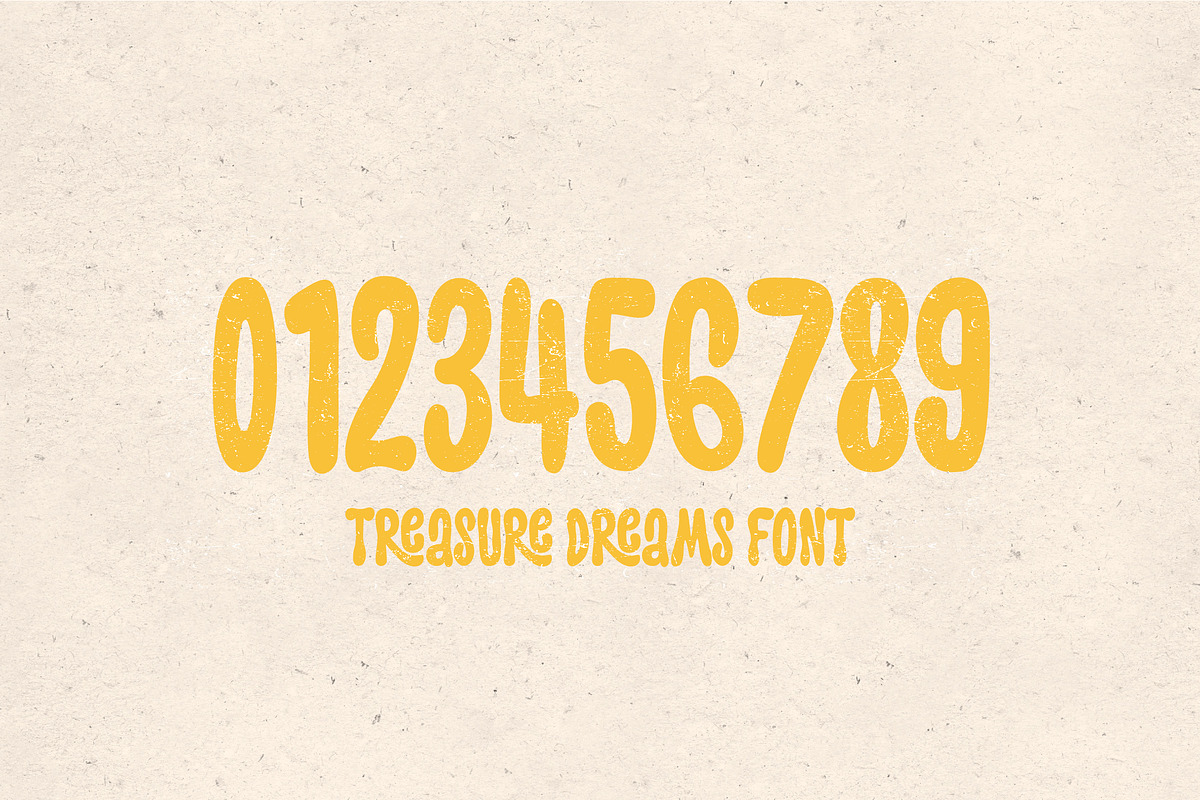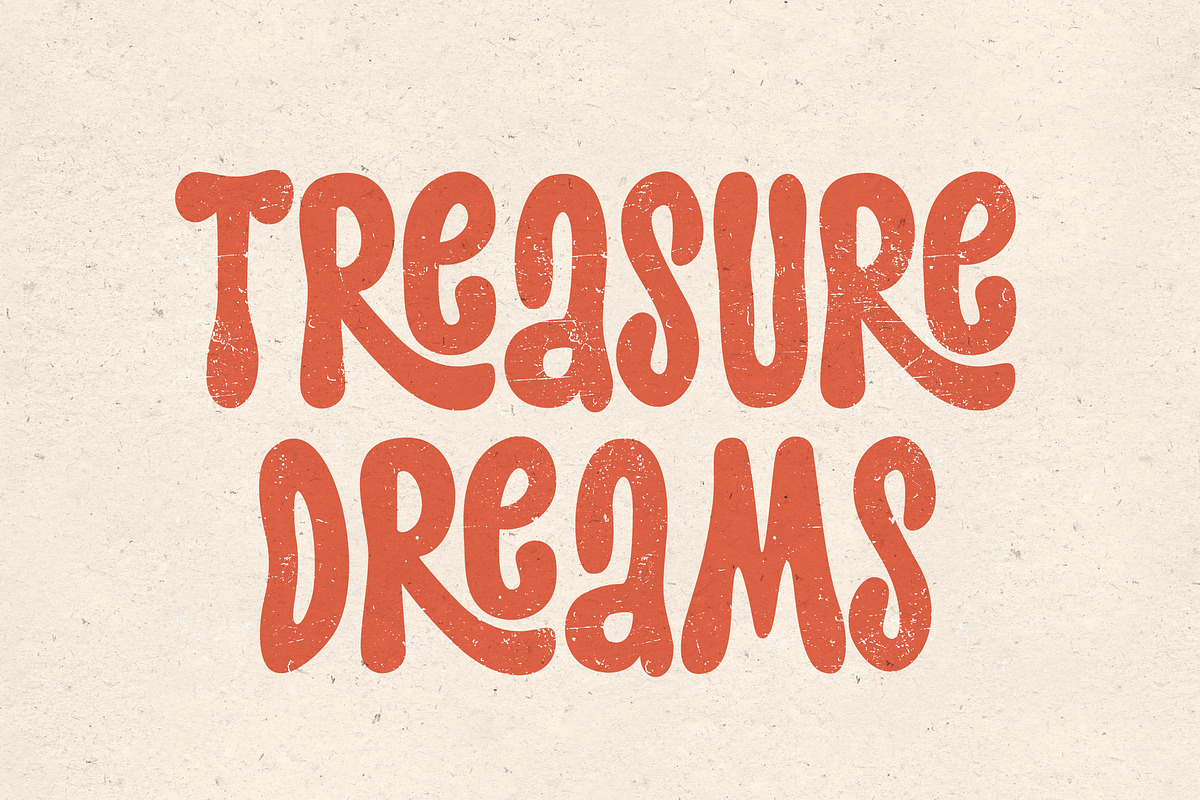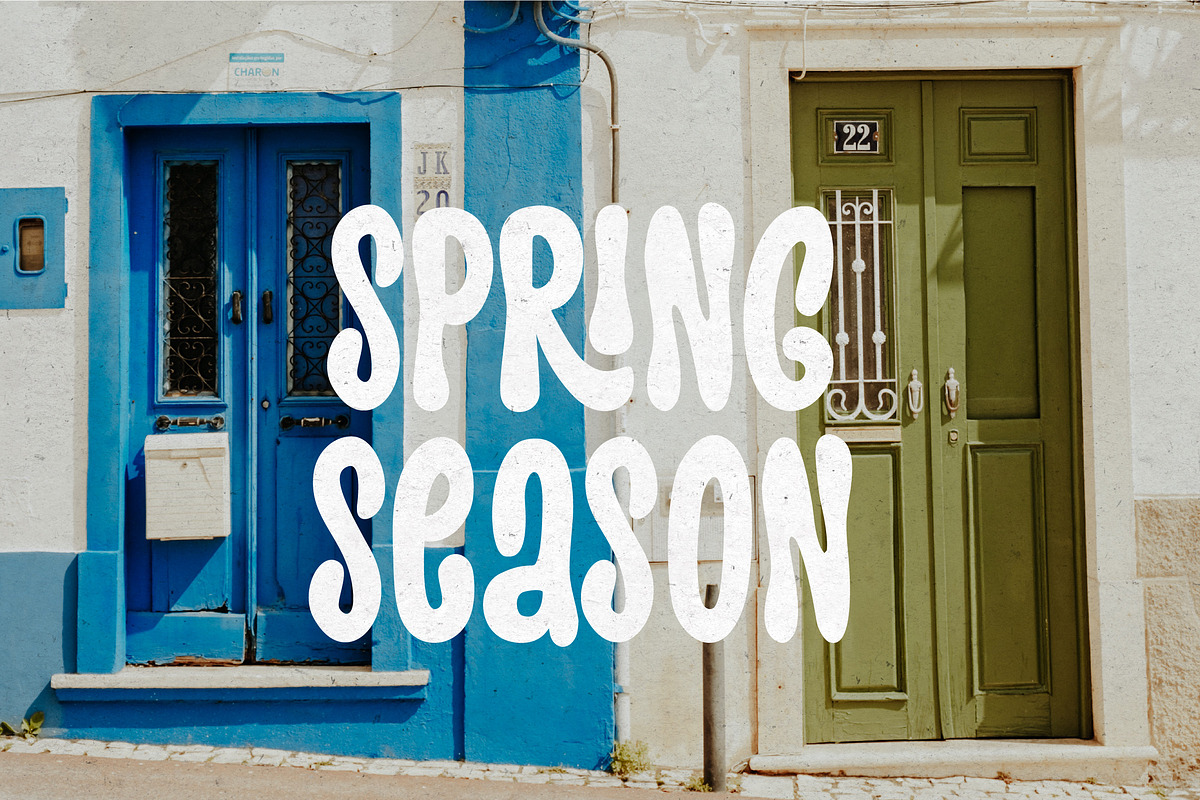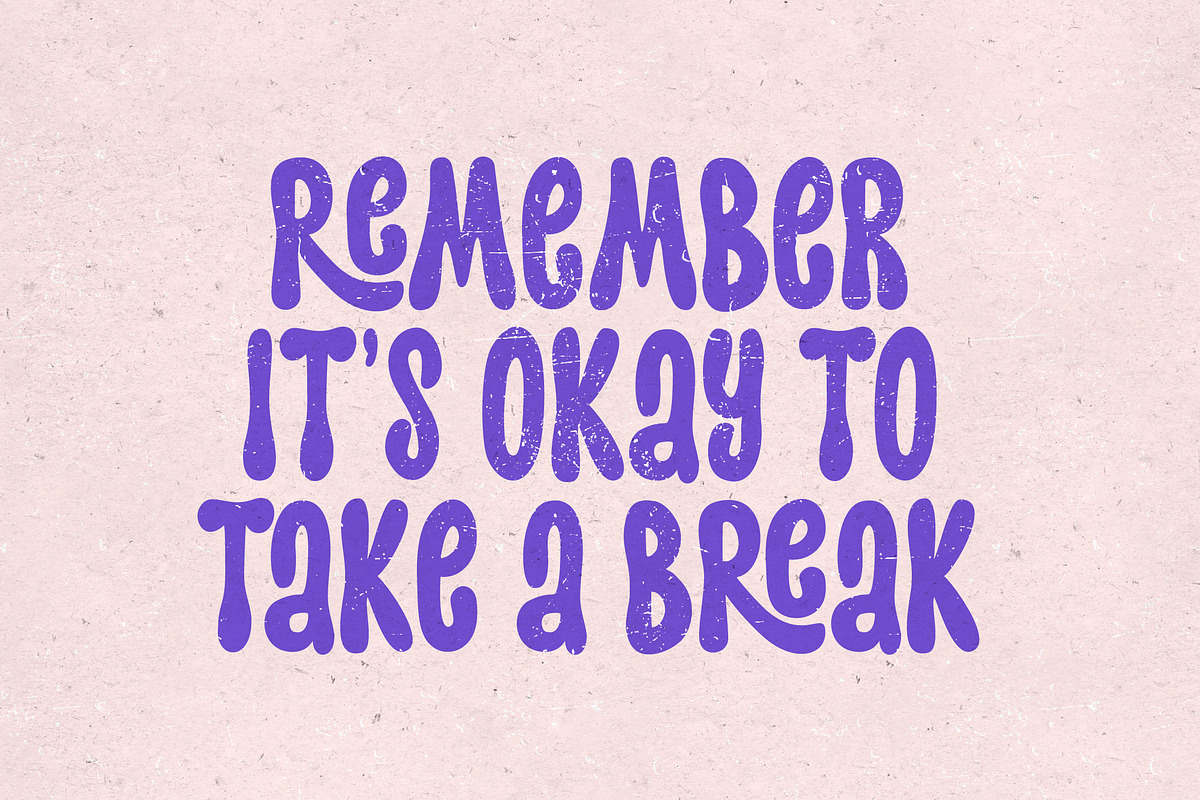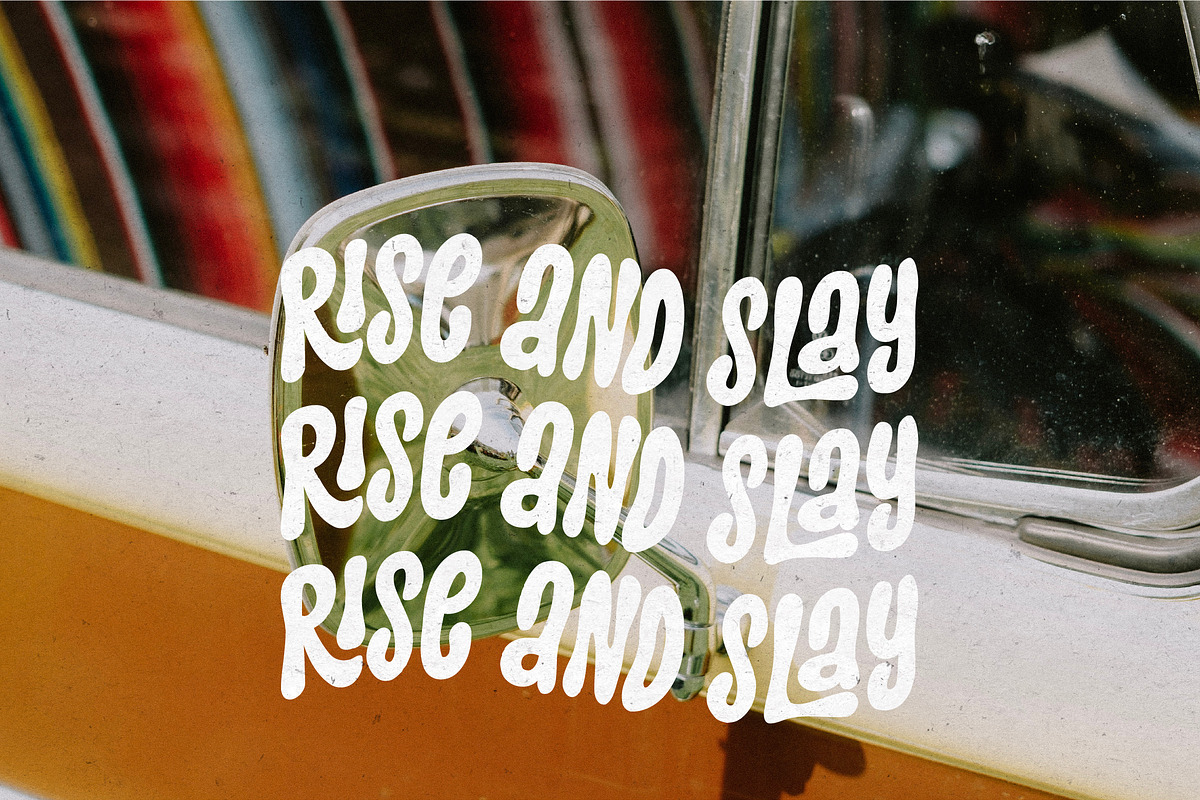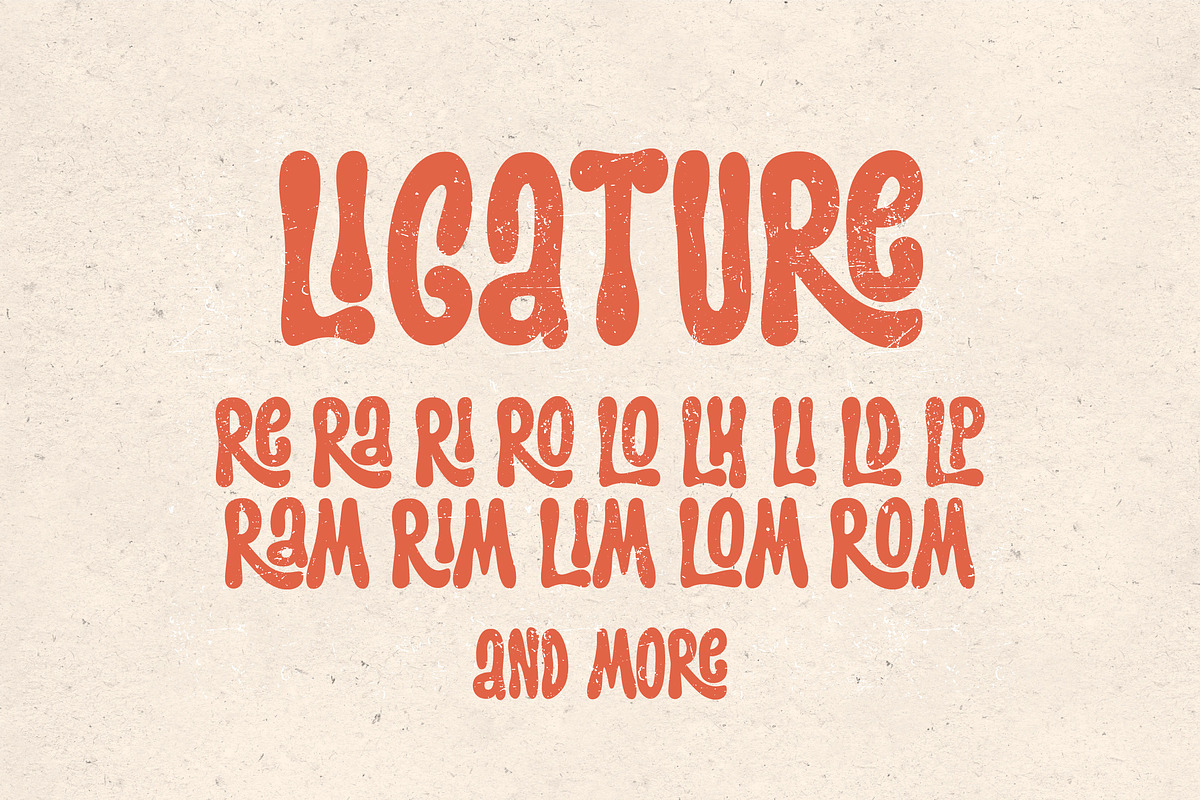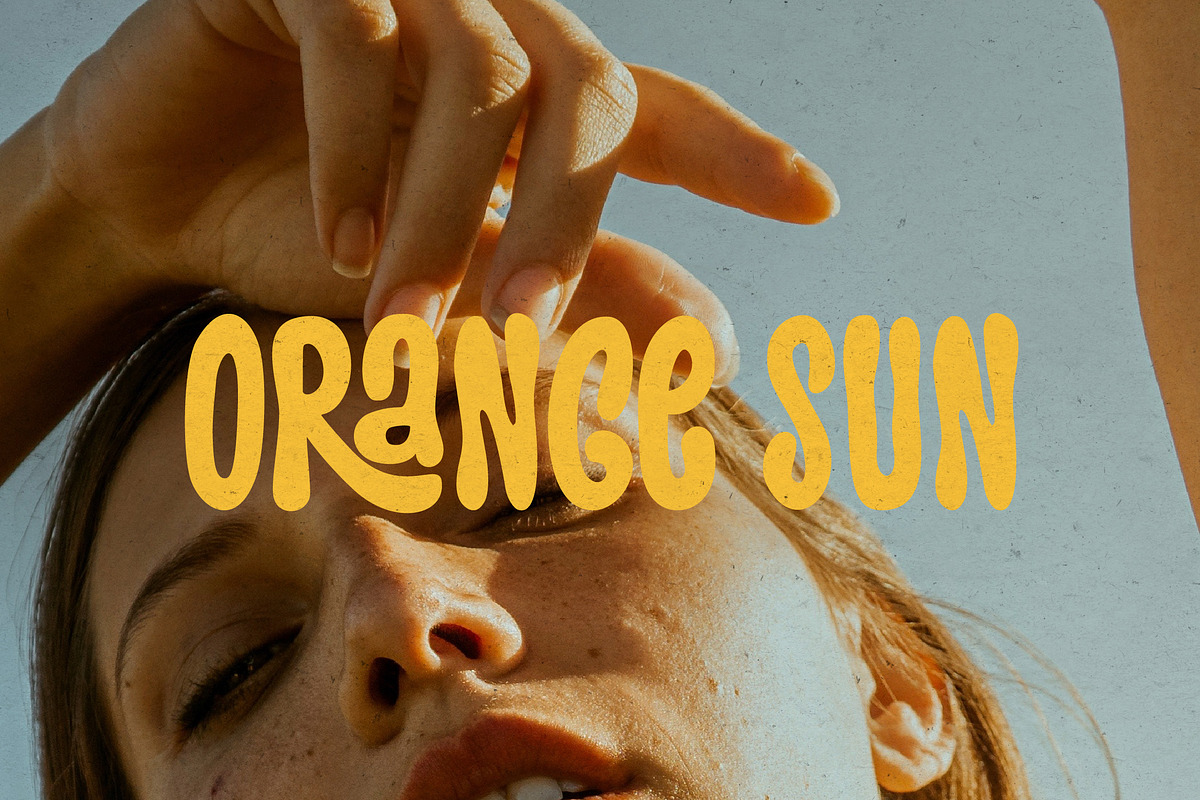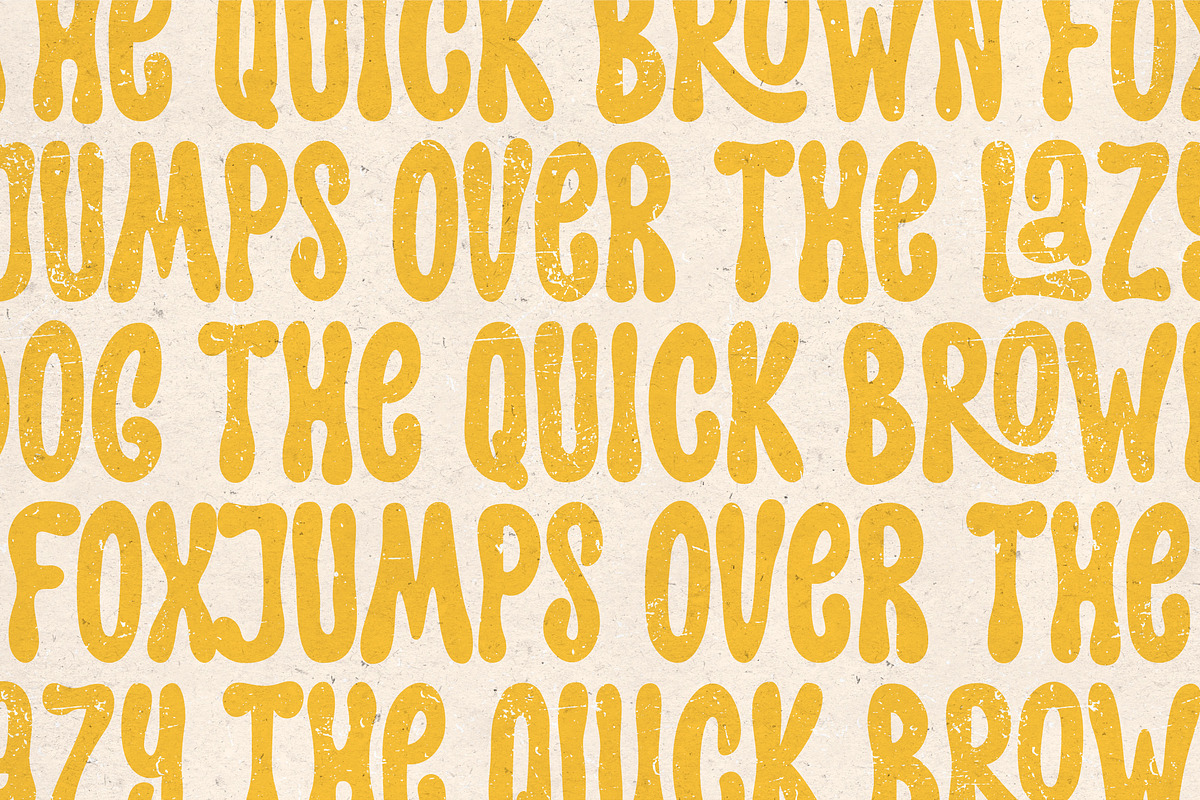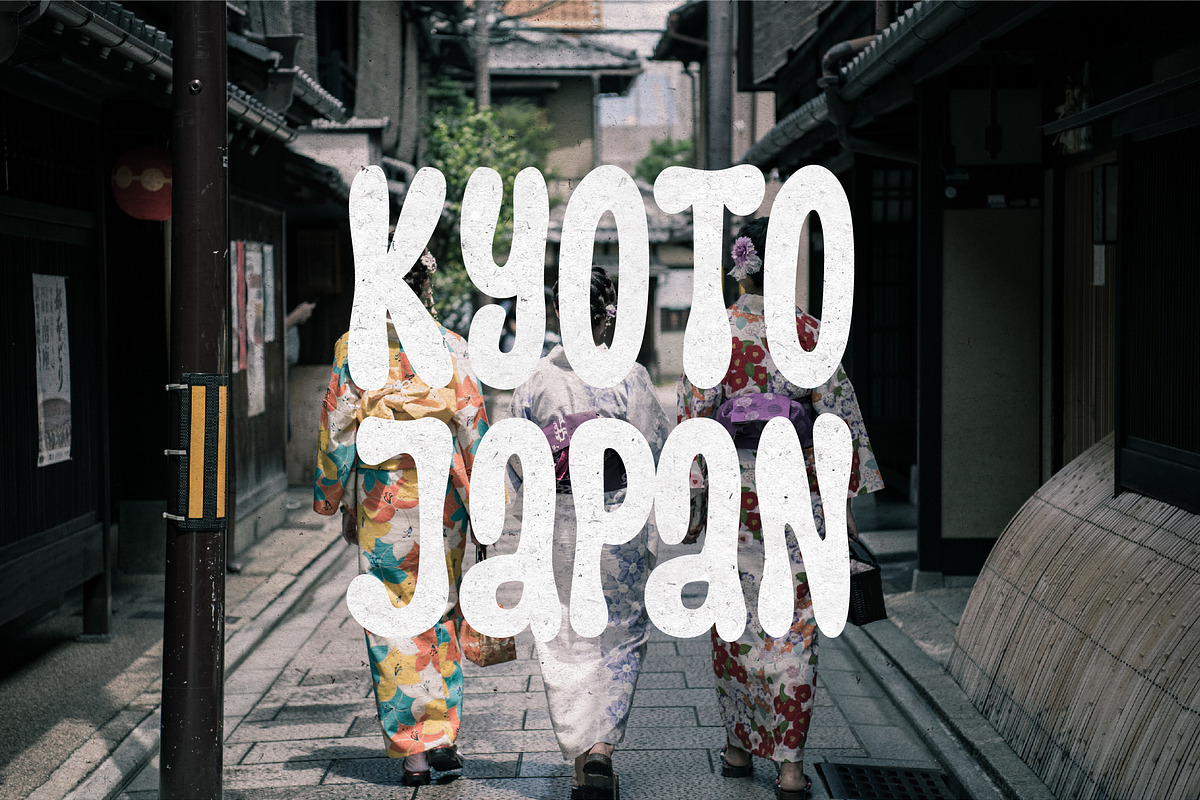
Treasure Dreams
Introducing, Treasure Dreams - a retro font with playful look. Treasure Dreams will be perfect for stickers, greeting cards, logos, posters or anything that requires a fun and retro look!